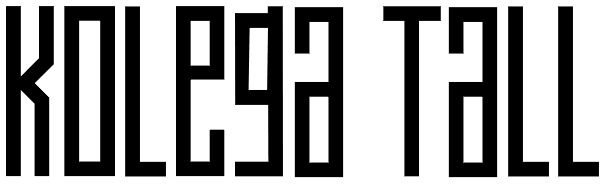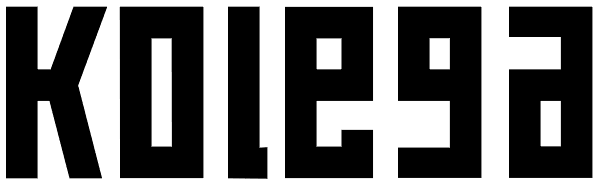
Kolega
Maybe I should have named this font “Communist Block”. But it also works well for Colonial-style tavern signs. It’s square, geometric and rigid, and is the perfect thing for totalitarian themes. The family consists of three fonts: Kolega (“Comrade...
Kolega Podrobska
Kolega Tall
Kolega